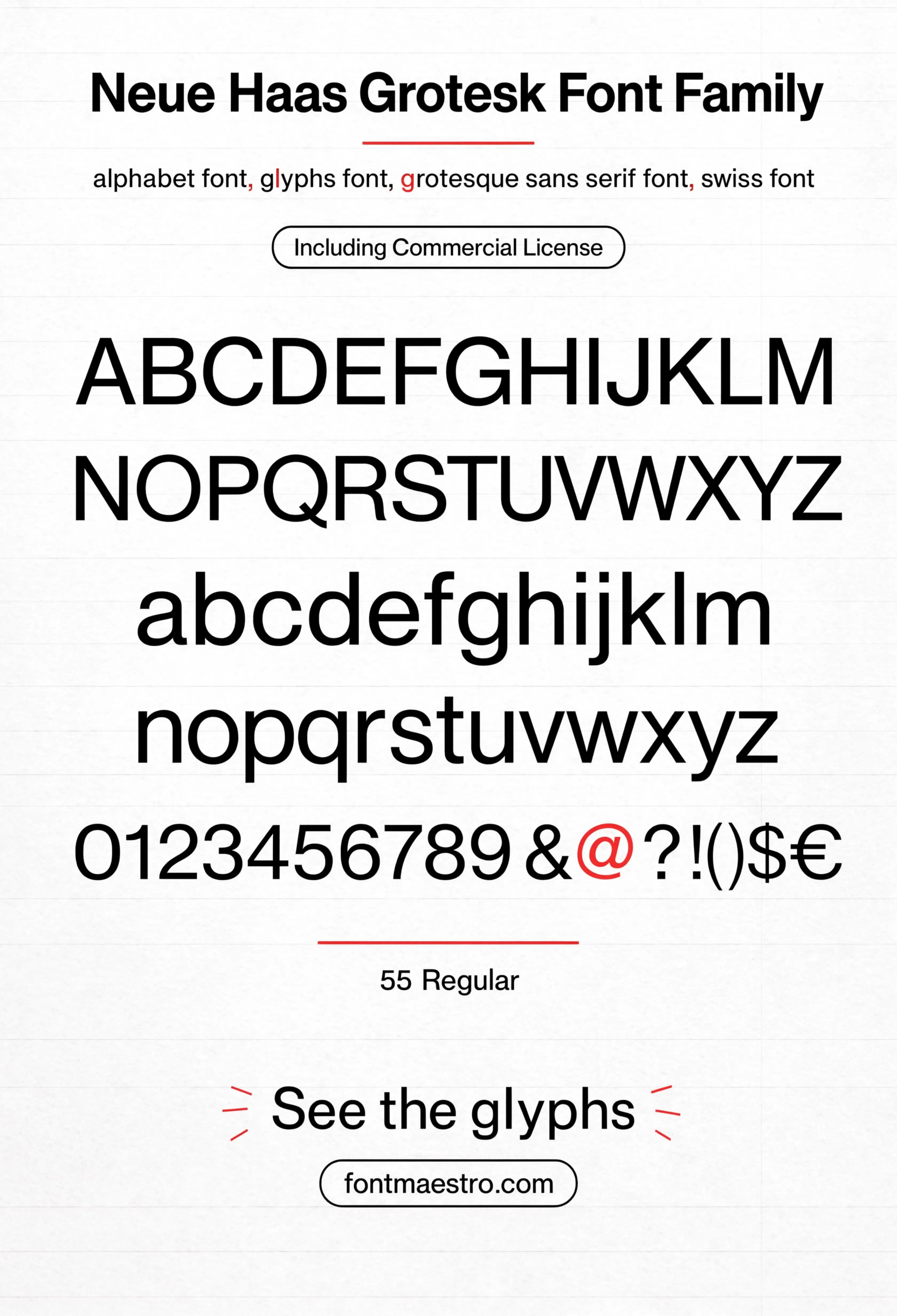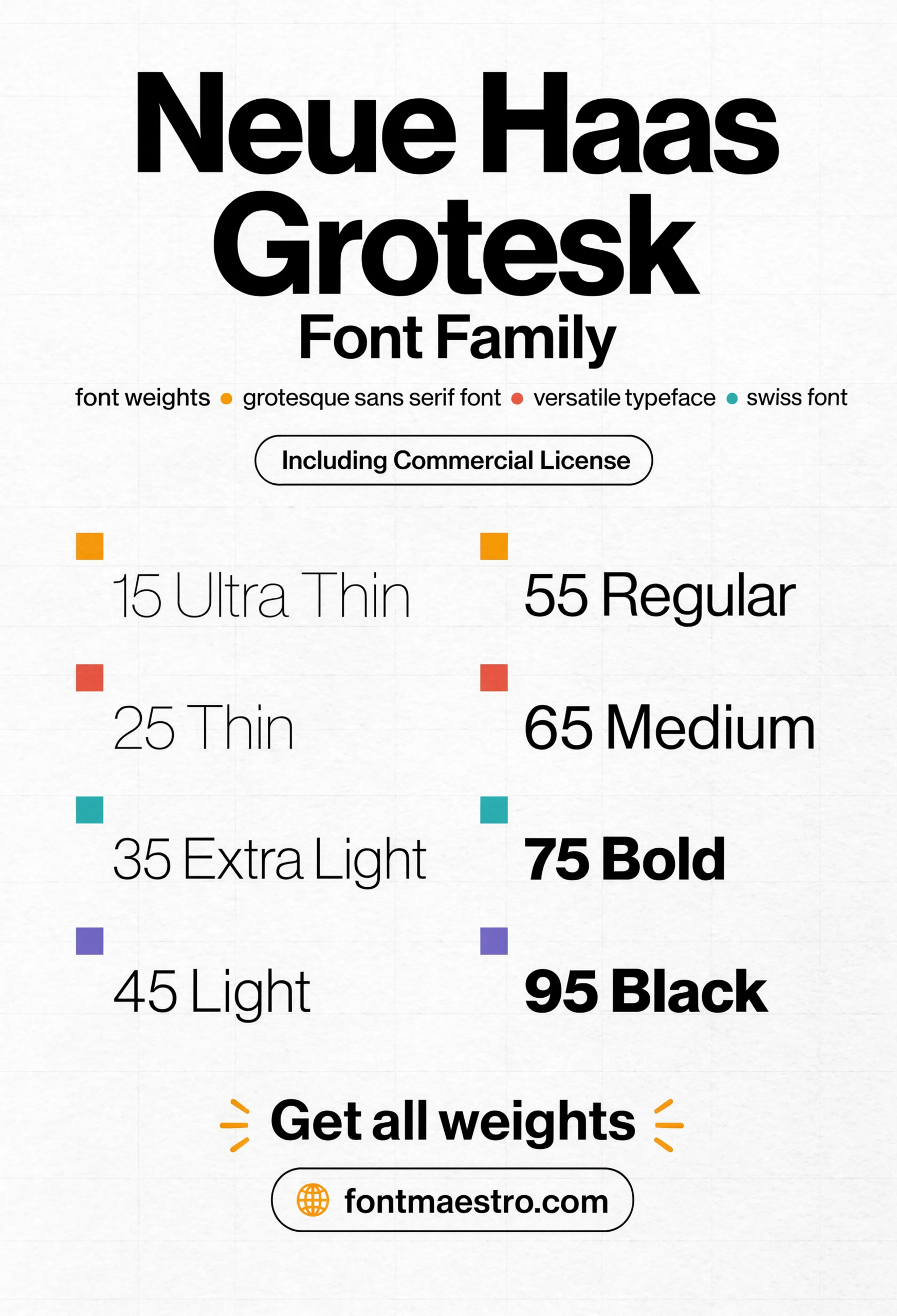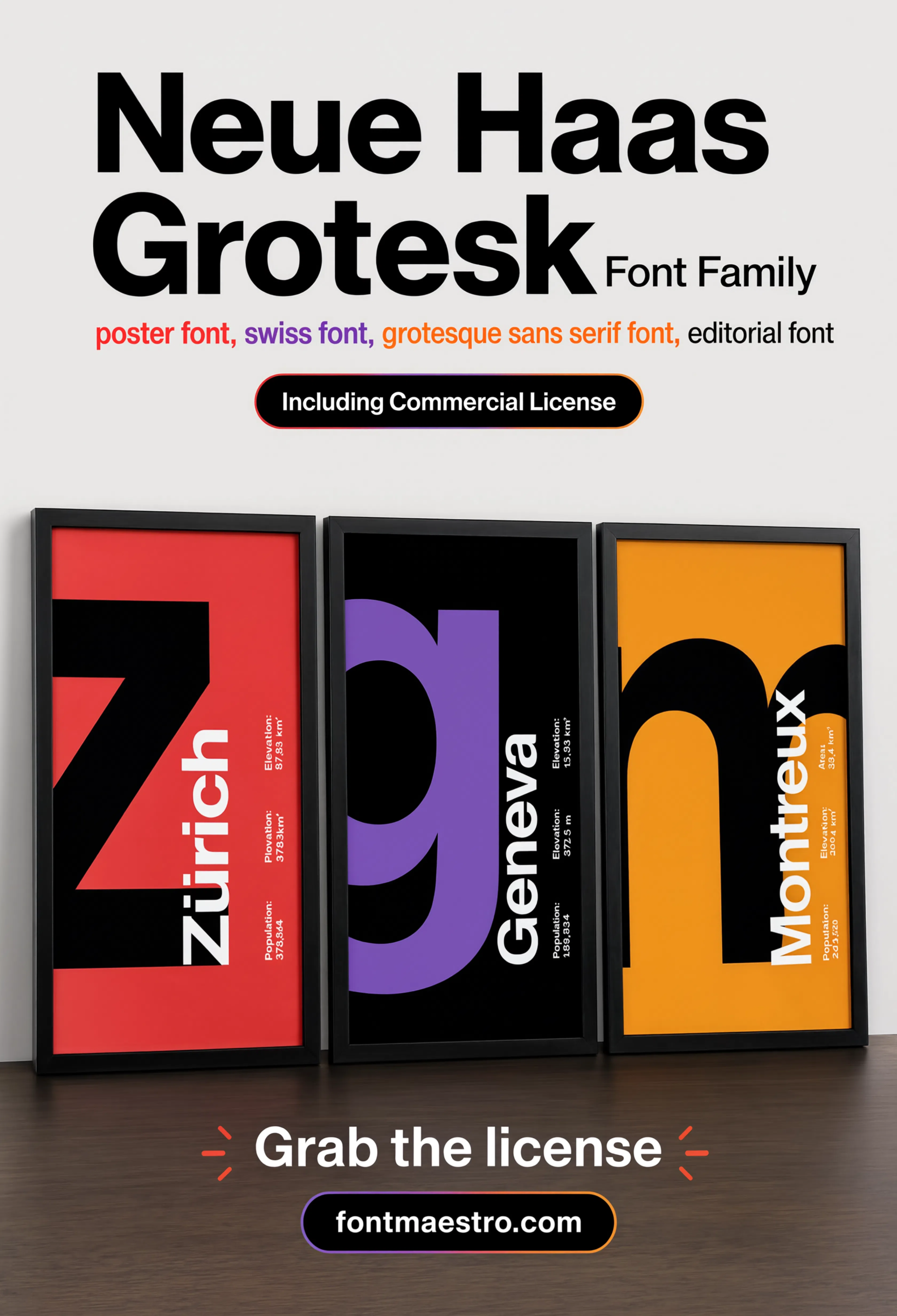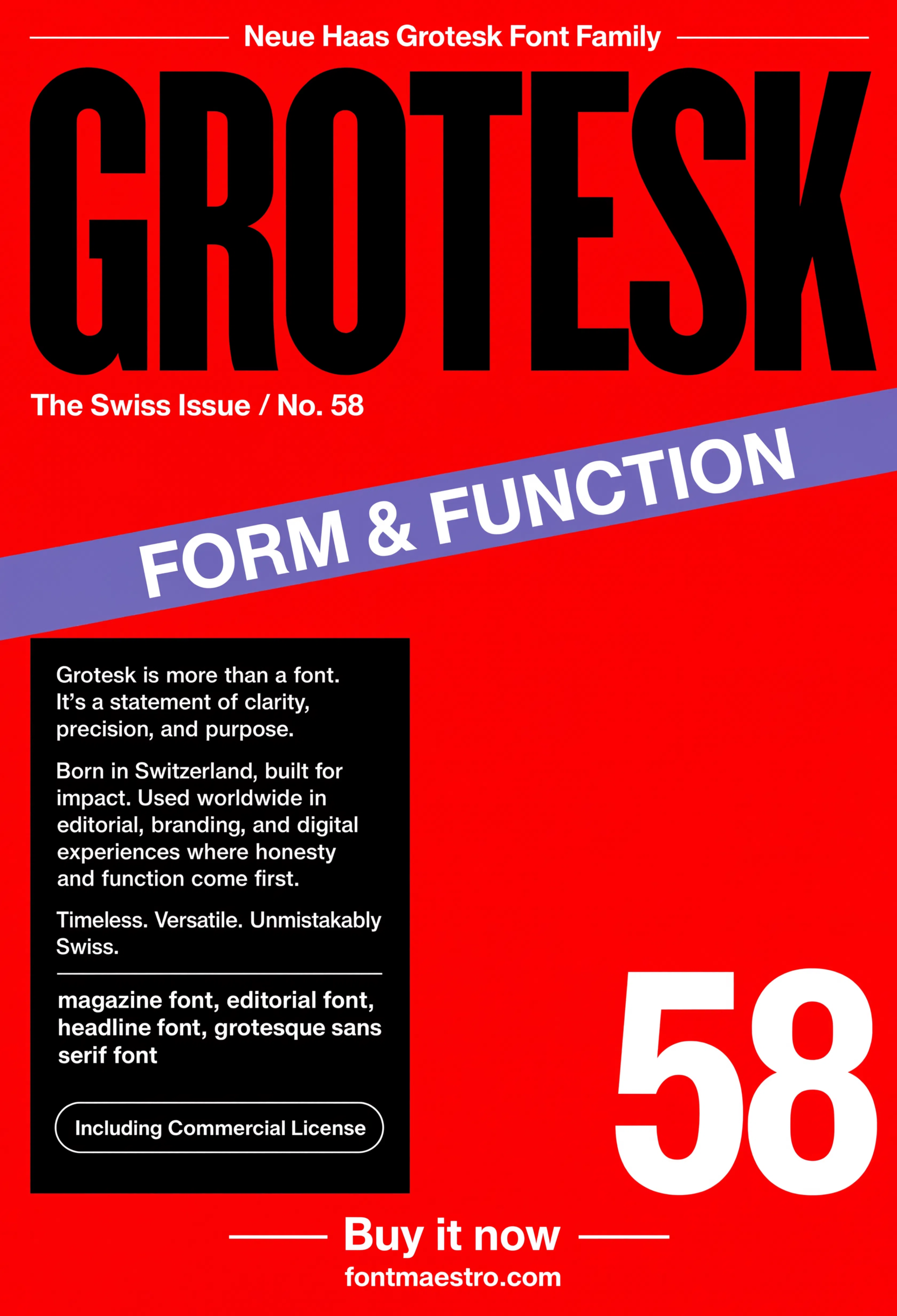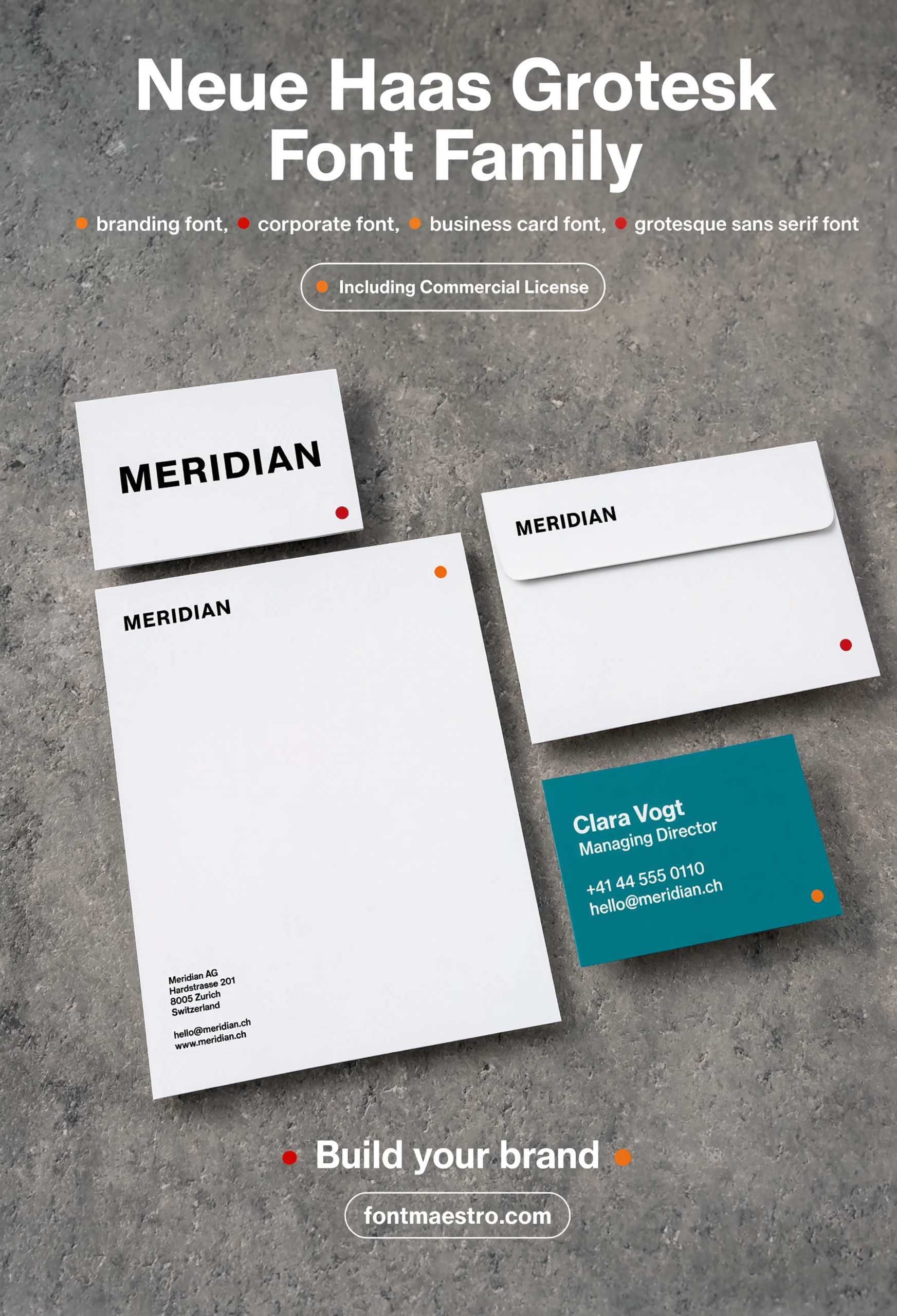
Every grotesque sans-serif on a design blog’s “clean and modern” list traces back to one 1957 release: Neue Haas Grotesk, designed by Max Miedinger in Switzerland. Helvetica is its better-known descendant — but the original still holds tighter spacing and sharper terminals than the version most people recognize today.
That distinction matters if you’re chasing classic font styles for a project that needs to look considered rather than default. Neue Haas Grotesk is the source, not the copy.
Quick answer: Classic font styles built on Neue Haas Grotesk get their character from tight letter spacing, a large x-height, and near-uniform stroke width — the traits that defined 1950s Swiss International Style typography and still read as clean and authoritative today. It works across editorial, wayfinding, and branding use because the letterforms were engineered for neutrality at any scale.
What Makes Neue Haas Grotesk a Genuine Classic Font Style?
Most “classic” labels get slapped on any sans-serif that’s been around for a few decades. Neue Haas Grotesk earns it differently — it was one of the first typefaces designed specifically to have no personality of its own, so the content could carry all the meaning. That neutrality is exactly what made Swiss International Style typography so influential.
The alphabet specimen below shows that restraint across the full character set — consistent stroke width, minimal contrast, and letterforms that stay legible without calling attention to themselves.
Which Classic Font Style Detail Should You Check First?
- Letter anatomy — Neue Haas Grotesk’s squared-off terminals and consistent bowl shapes are what separate a genuine classic grotesque from a generic system-font substitute.
- Type scale behavior — a classic font style needs to hold its proportions from caption size up to a headline without losing legibility.
- Weight ladder — Swiss-style branding typically leans on two or three weights maximum, not a sprawling ten-weight family.
- True italics — check whether the italic is a genuine cut or a mechanically slanted roman; Neue Haas Grotesk’s italic was drawn separately.
Every letterform in one sheet — the restraint that separates a genuine classic grotesque from a generic system-font substitute.
Swiss-style branding rarely needs more than a couple of weights — this sheet shows how far restraint can go before a system starts feeling repetitive.
A run of city-name posters that leans entirely on type — no imagery, just the letterforms carrying the whole composition.
Editorial cover treatment — large-scale masthead type next to smaller cover-line text, testing the family across two very different sizes at once.
Letterhead and business-card scale type — the smallest, closest-reading test most classic grotesques ever face.
Is the Italic a True Cut or a Fake Slant?
A slanted roman is the fastest way to spot a font family that skipped real design work. Neue Haas Grotesk’s italic was drawn as its own style, not tilted mechanically from the upright — the proportions shift slightly, the way a genuine italic should.
The italic sheet below shows that distinction next to the upright weights.
Why Does Neue Haas Grotesk Still Define “Classic” Today?
Neutrality ages differently than trend-driven design. A typeface built to disappear behind its content doesn’t look dated the way a decorative or era-specific display font eventually does — that’s the real reason Swiss International Style typography from the 1950s still reads as current.
Helvetica popularized the look worldwide, but it also softened some of the original’s tighter spacing and sharper detailing. Going back to Neue Haas Grotesk directly is the difference between a classic font style and a slightly blurred copy of one.
- Classic font styles come from structural restraint — tight spacing, uniform stroke width, and neutrality — not decoration or trend.
- Check letter anatomy and true italic cuts before assuming any “clean sans” font qualifies as a genuine classic.
- Neue Haas Grotesk holds its Swiss International Style character more precisely than Helvetica, its better-known descendant.